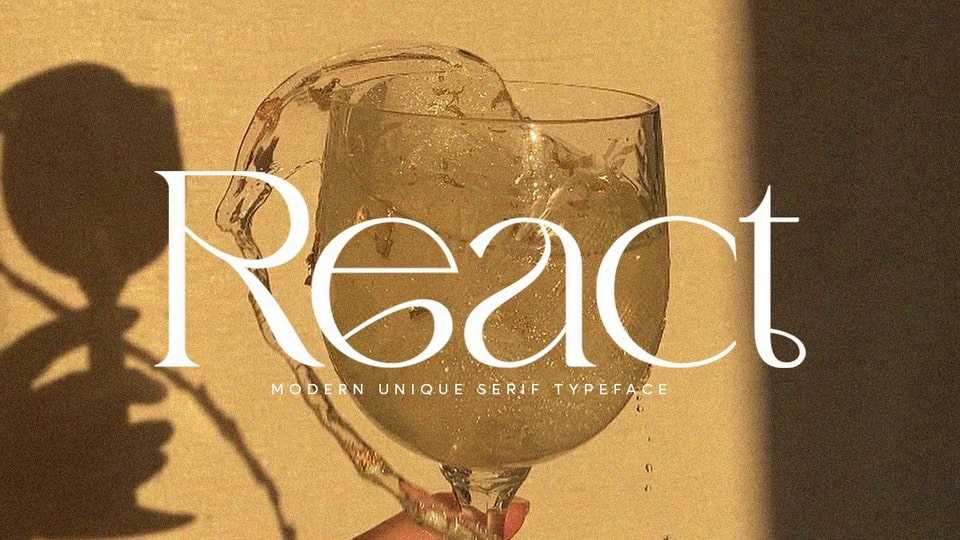
Download React font, a classy, elegant serif typeface that looks incredible in both large and small settings. React clean lines and smooth curves give any project an extra touch of class.